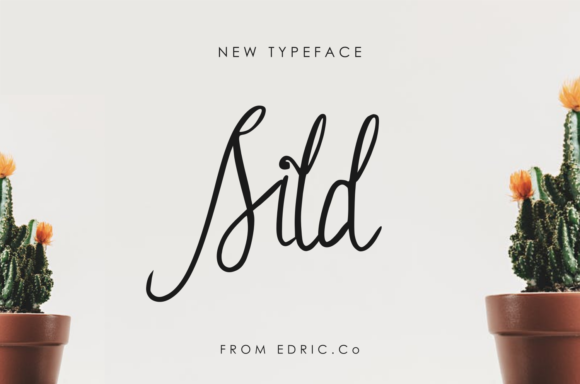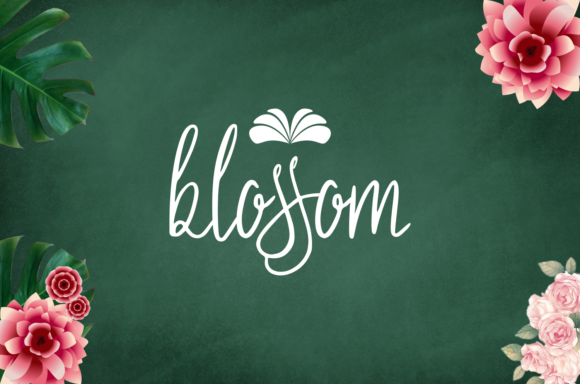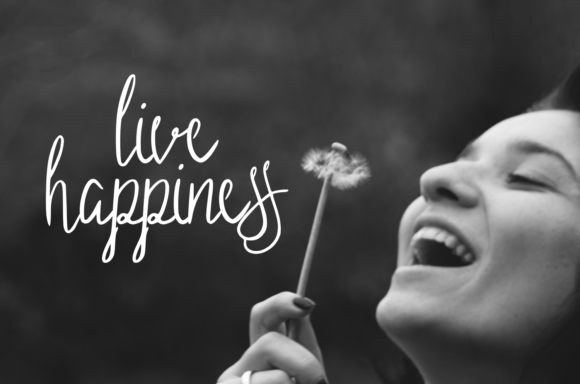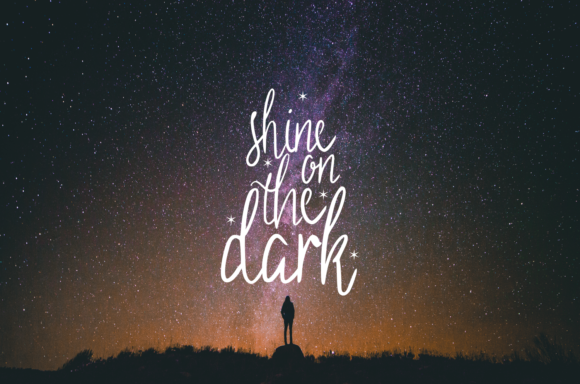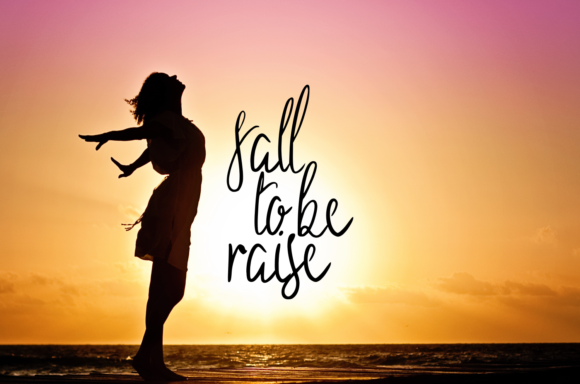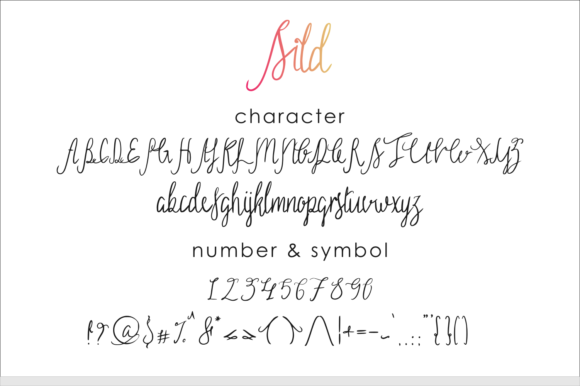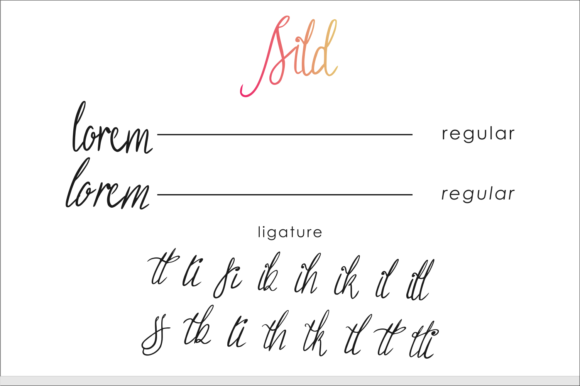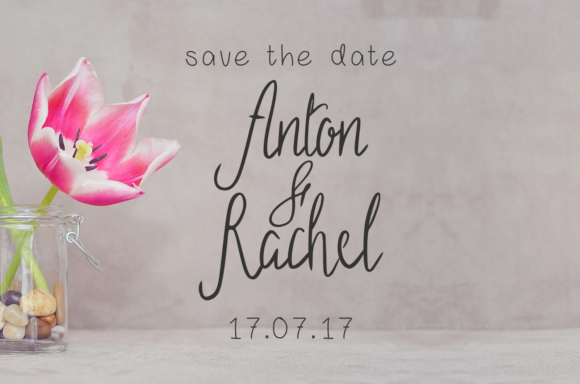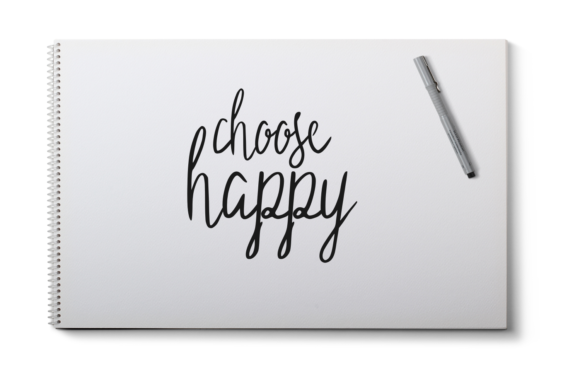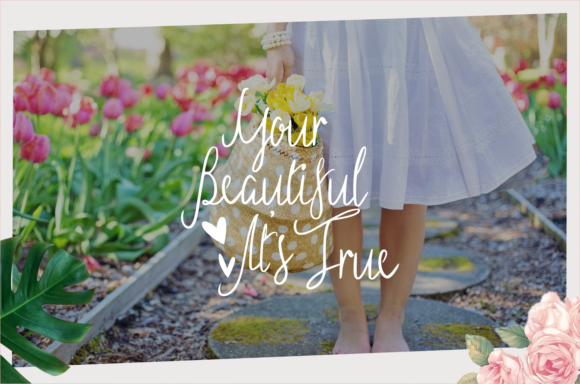
Sild Font
About Sild Font
The Sild is an beautiful handwritten font. It comes in a regular and italic style which will add an elegant style to your designs.